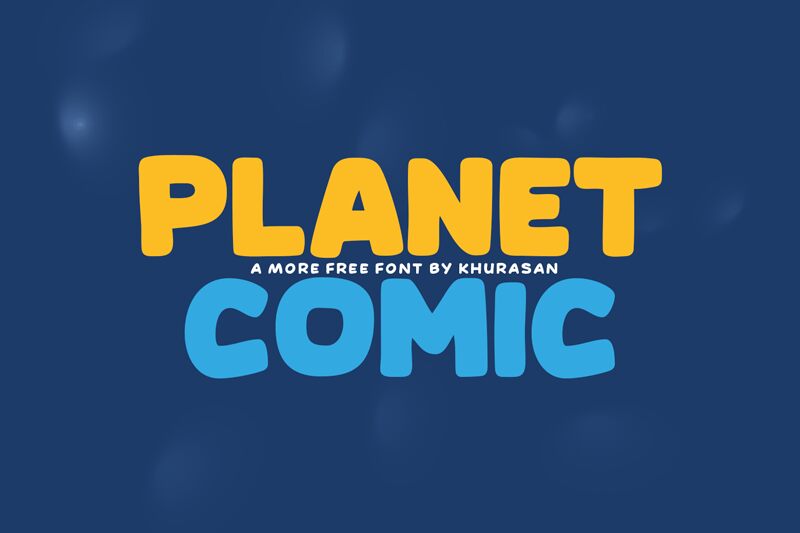
Planet Comic
Planet Comic, designed by the talented Khurasan, is a captivating display font that will bring your projects to life. With its extra-bold weight and semi-expanded width, this cartoon-inspired typeface is perfect for a variety of creative endeavors. Whether you're designing children's books, comic strips, or even branding for playful products, Planet Comic will add a touch of whimsy and excitement. Let your imagination run wild as this font takes center stage in your next project!